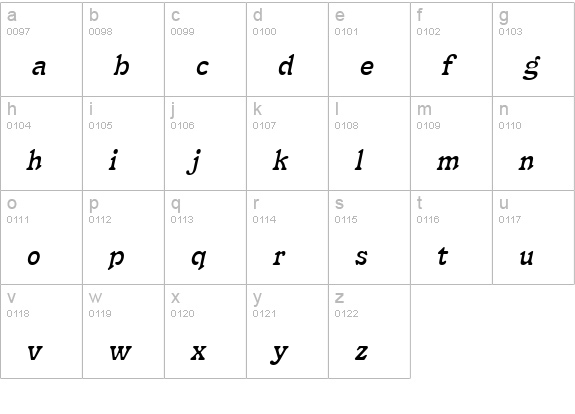
Terra Narrow Italic is a distinctive, condensed-width, italic variant in the Terra typeface family \xE2\x80\x94 well suited to design and typography projects.
Terra Narrow Italic font is a beautifully crafted typeface that exudes elegance and sophistication. With its slender and sleek design, this font is perfect for adding a touch of class to any project. The italicized nature of the font adds a sense of dynamism and movement, making it an ideal choice for conveying a sense of creativity and forward-thinking. The narrow proportions of Terra Narrow Italic font make it particularly well-suited for projects that require fitting a lot of text into a limited space, such as brochures, flyers, or packaging designs. Its versatility allows it to seamlessly adapt to both print and digital mediums, ensuring a consistent and professional look across various platforms. One of the most remarkable features of Terra Narrow Italic font is that it is available for free. Yes, you read that right! This exceptional font can be freely downloaded at FontsMarket.com, making it accessible to designers and creatives of all backgrounds and budgets. This generosity allows anyone to elevate their designs without having to worry about additional costs. Whether you're designing a logo, creating a website, or working on a branding project, Terra Narrow Italic font is sure to captivate your audience with its refined and sophisticated aesthetic. Its unique combination of narrow proportions and italicized style sets it apart from other fonts, making it a distinctive choice for any design endeavor. Add a touch of elegance to your next project with Terra Narrow Italic font, and experience the beauty and versatility that only a high-quality typeface can provide. Don't miss out on this opportunity to enhance your designs with a font that is not only visually stunning but also freely available for download at FontsMarket.com.